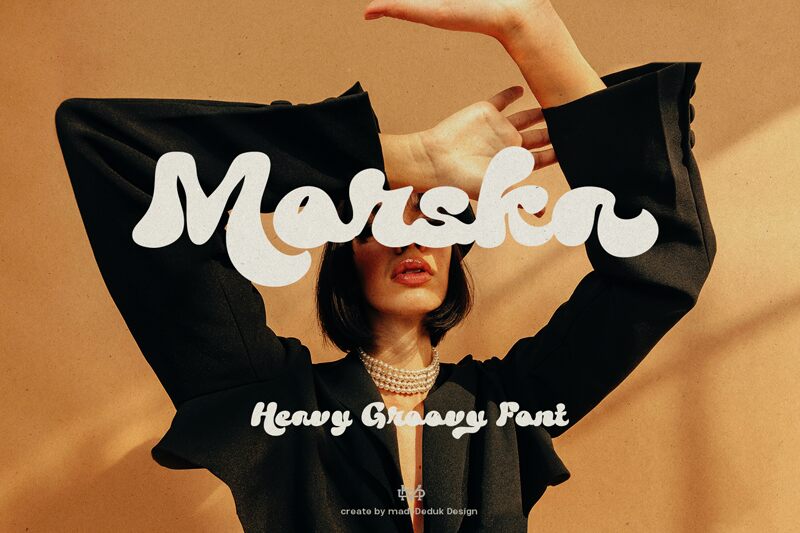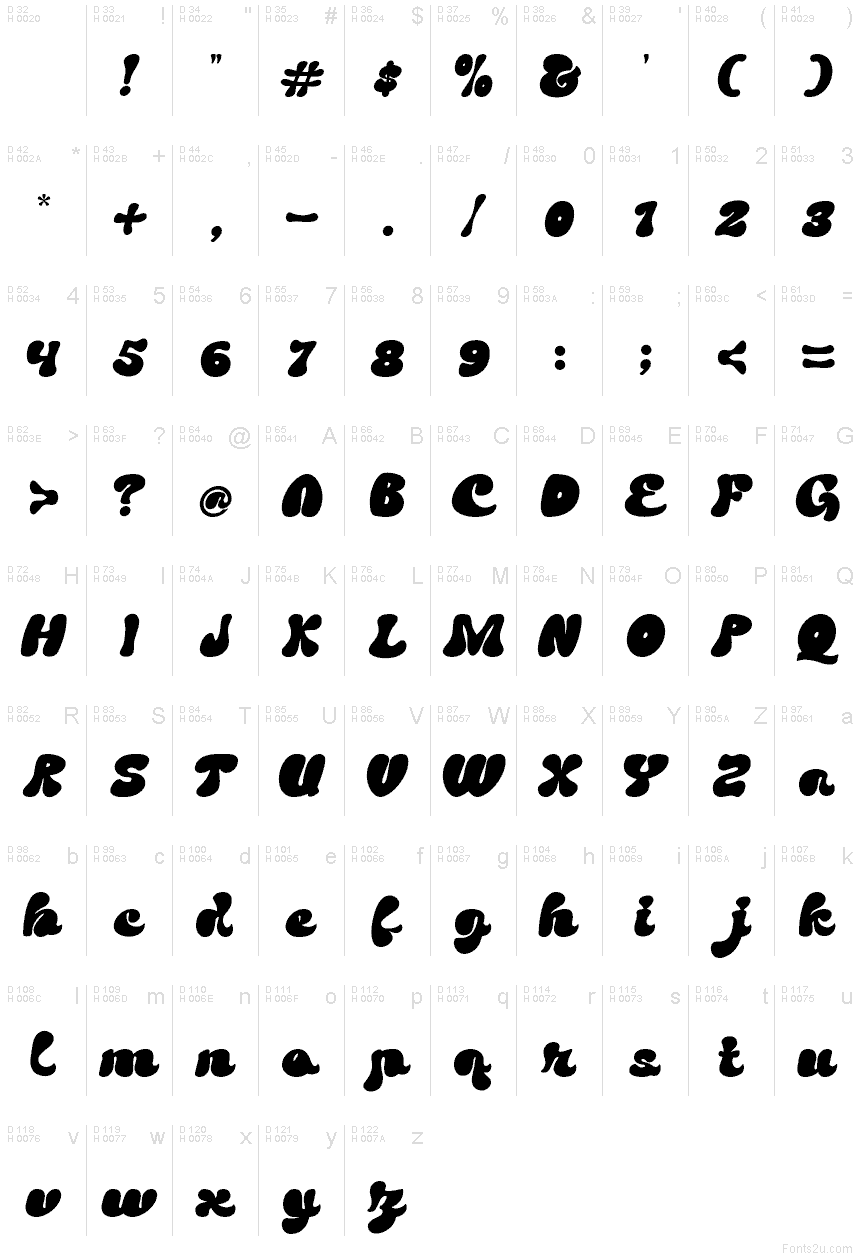
Morska font by madeDeduk is a free groovy display typeface that feels like liquid ink caught mid-splash. Its ultra-bold, blobby curves melt into each other, creating chunky, connected wordshapes that feel handmade and a little wild. Letters swell at the ends like drops of wet paint, giving logos and headlines a dense, inky presence that almost looks sculpted rather than drawn.
Using Morska, you get lettering that instantly suggests retro posters, funky album covers, beach or surf brands, food packaging, festival merch, and bold social media graphics. This free font shines at large sizes where its smooth, swollen contours can really breathe. Pair it with a clean, light sans serif for body copy to keep things readable while letting Morska handle all the loud, joyous moments in your layout.